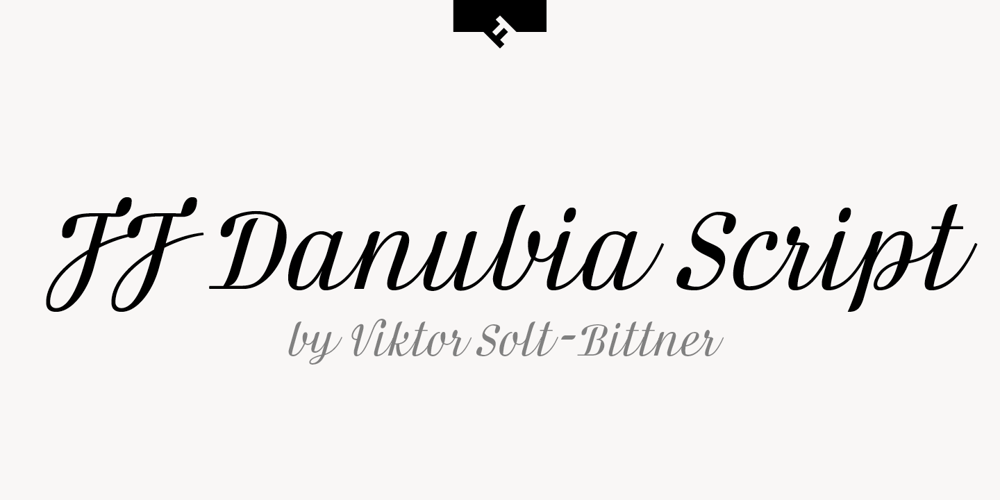
FF Danubia Script Font Family was designed by Viktor Solt-Bittner and published by FontFont. FF Danubia Script contains 1 styles and family package options. Austrian type designer Viktor Solt-Bittner created this script FontFont in 2002. The font is ideally suited for advertising and packaging, festive occasions, film and tv as well as logo, branding and creative industries. FF Danubia Script provides advanced typographical support with features such as ligatures and alternate characters. It comes with a complete range of figure set options – oldstyle and lining figures, each in tabular and proportional widths. This FontFont is a member of the FF Danubia super family, which also includes FF Danubia.”